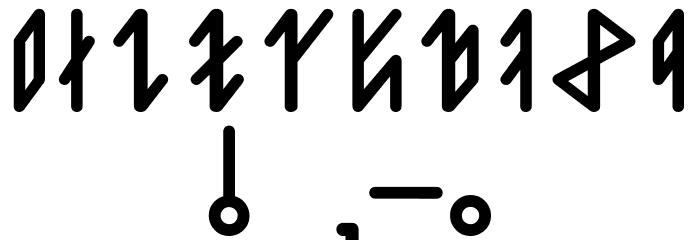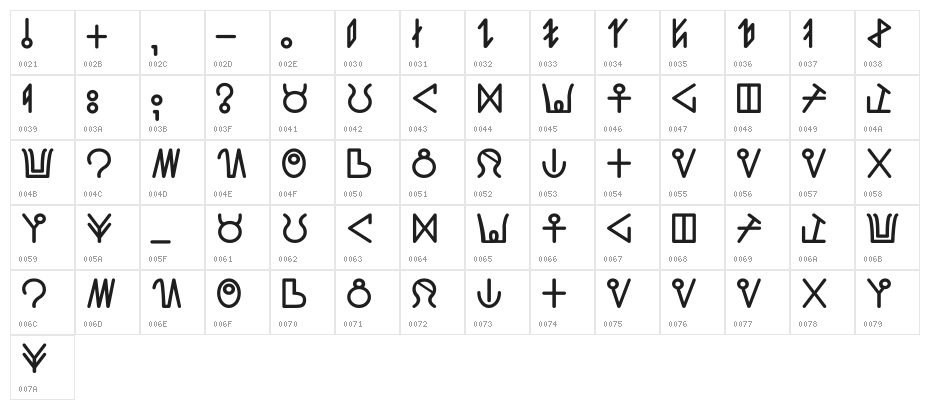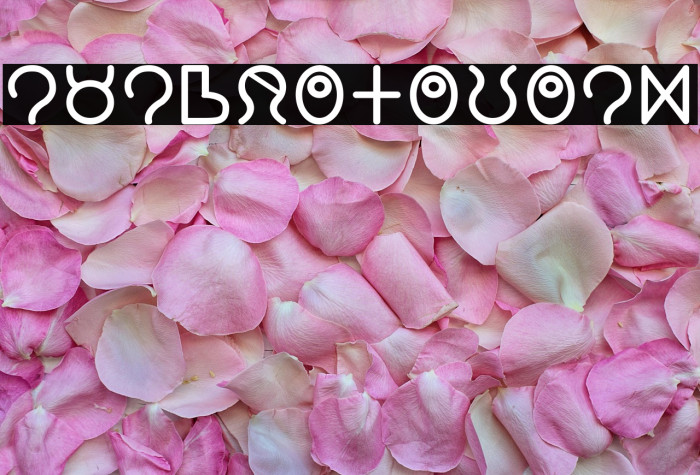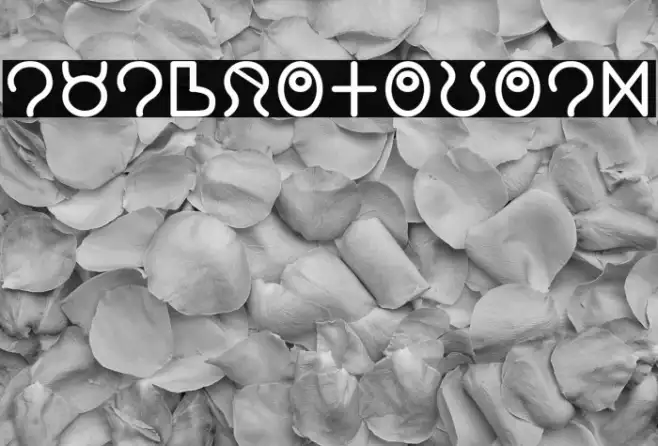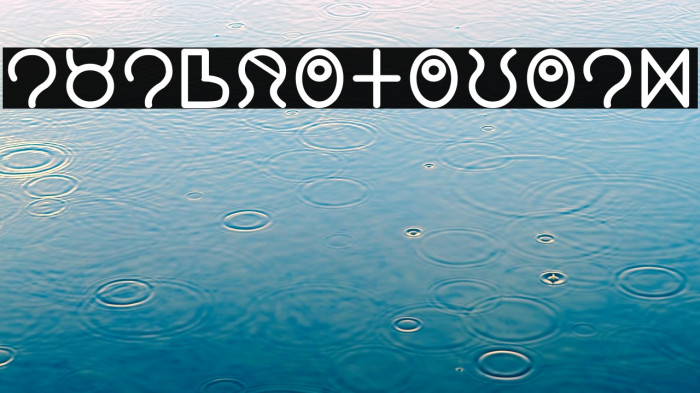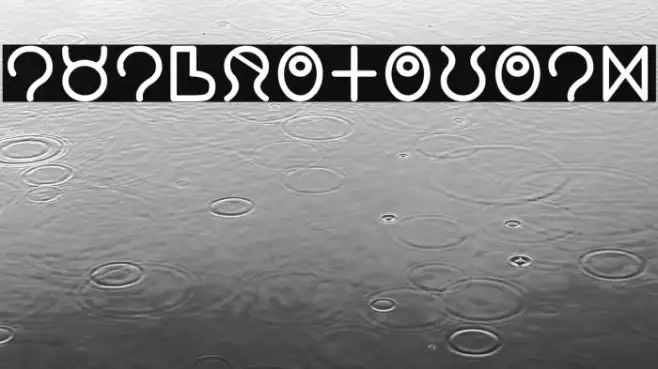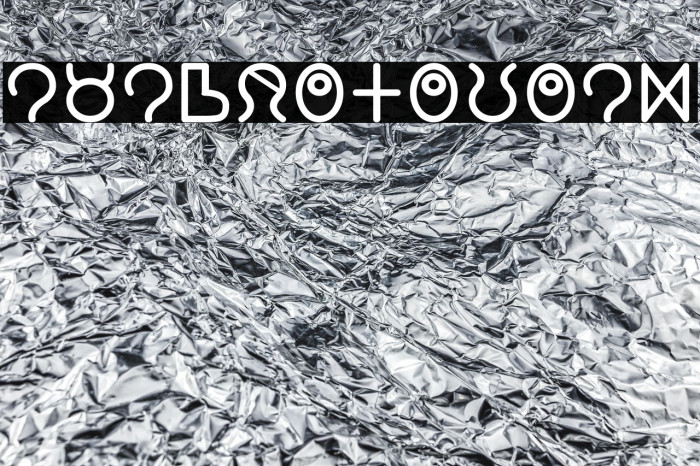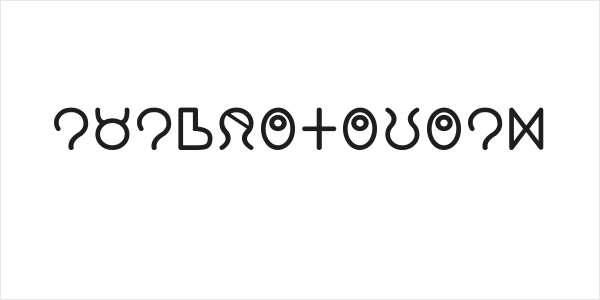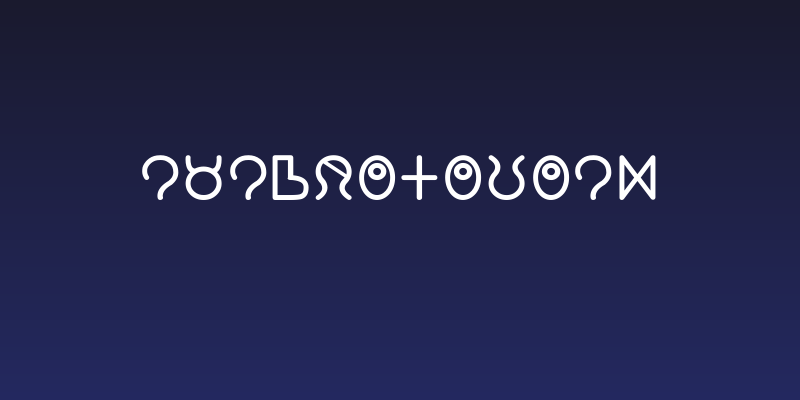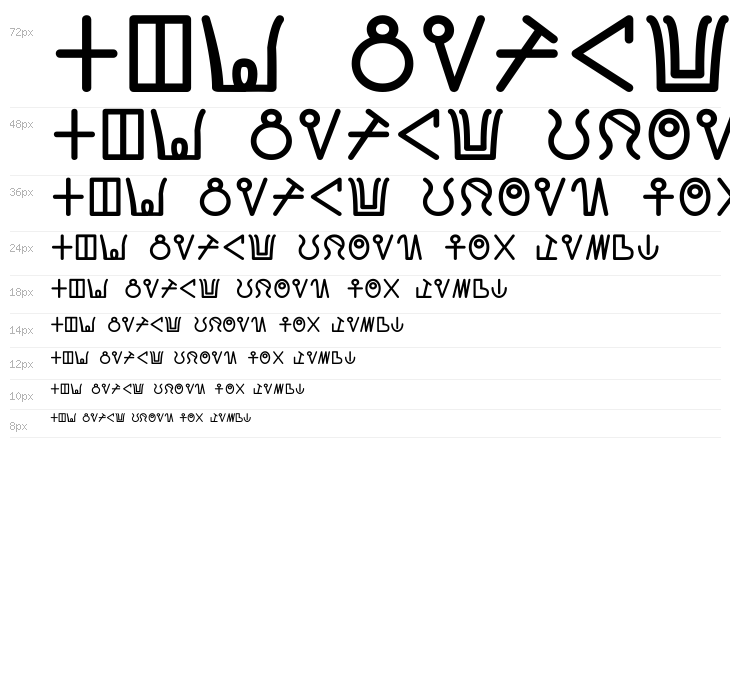
LALProtoBold Font
LALProtoBold Description
This font features a unique and abstract design, characterized by its bold and geometric shapes. Each character is crafted with a distinct, almost futuristic style, making it stand out with its unconventional forms. The strokes are consistent in thickness, providing a uniform appearance across all characters. The design incorporates a mix of sharp angles and smooth curves, creating a visually striking effect. This font is ideal for creative projects that require a modern and artistic touch, offering a fresh take on typographic design.
Use CaseLogos, Posters, Creative projects
Proposed ProjectsIdeal for branding, logos, posters, and any creative projects that aim to capture attention with a modern and artistic flair.